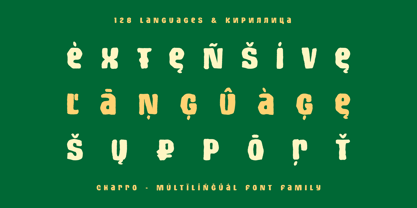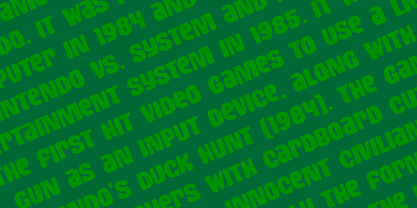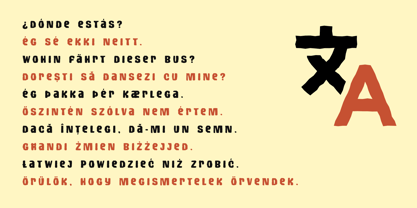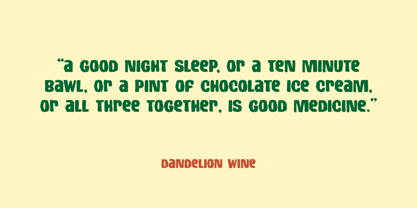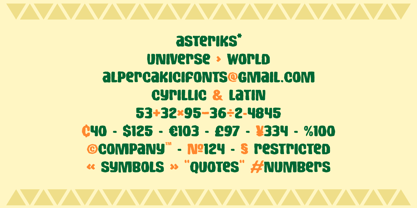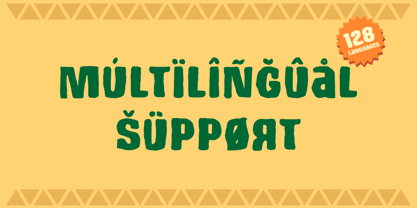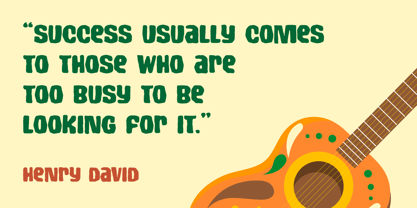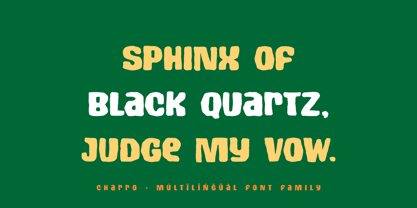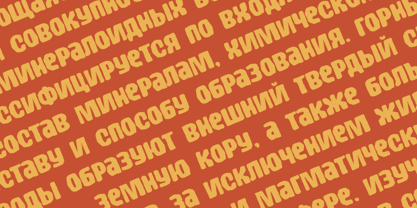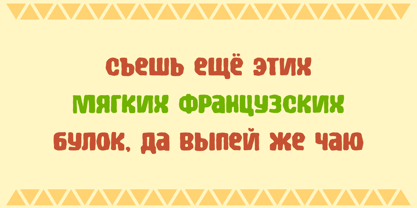
Charro
by AlperCakici
The Charro Font Family was designed by Alper Çakıcı and published by AlperCakici. Charro contains 1 styles.
Charro is a modern, versatile font with excellent kerning, making it ideal for both digital and print use. It features full support for the Cyrillic language, allowing for seamless multilingual communication. Charro's unique design combines classic proportions with a contemporary feel, making it stand out from other same categories fonts.